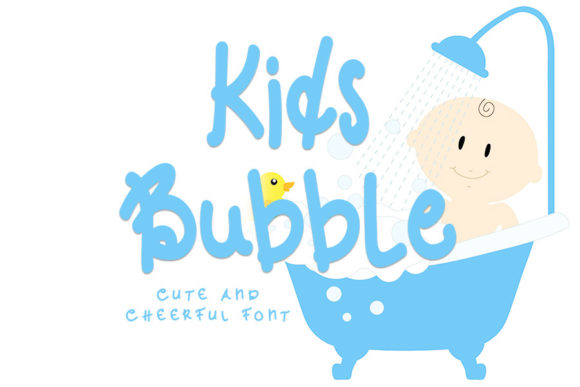
Kids Bubble Font
Step into a world of whimsy and enchantment with Kids Bubble Font, the ultimate font for igniting creativity and leaving a lasting impression. This enchanting script font, crafted by Intana Type, is designed to transport you to a realm where imagination knows no bounds, where every letter dances with joy and wonder.
Kids Bubble Font is not just a font; it's an invitation to embark on a magical adventure, where words come alive and stories unfold with a touch of playful charm. Its clean and simple design makes it effortlessly versatile, lending itself seamlessly to a multitude of projects, from fashion blogs and playful designs to enchanting invitations and captivating social media posts.
With Kids Bubble Font, you'll discover a font that captures the essence of childhood dreams and transforms them into tangible creations. Its delicate curves and bubbly shapes evoke a sense of nostalgia, harkening back to simpler times when laughter filled the air and imagination ran wild.
Unlock your creative potential and let your designs sparkle with the magic of Kids Bubble Font. Its endless variations and boundless possibilities will ignite your imagination and allow you to create designs that captivate and enchant, leaving an indelible mark on the hearts and minds of your audience.